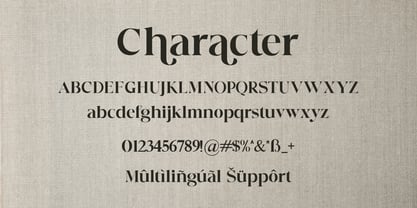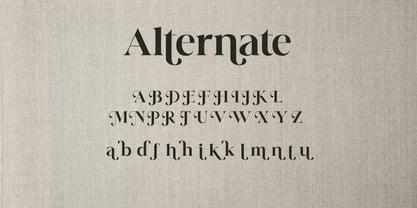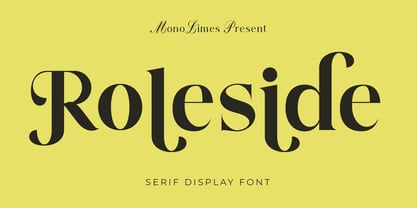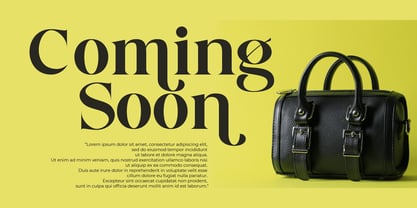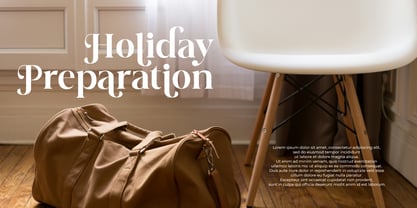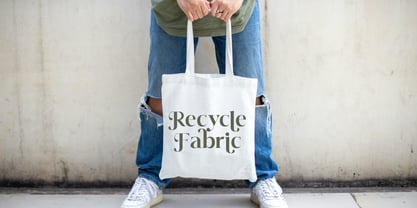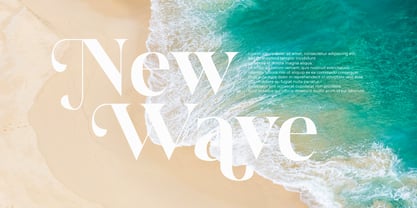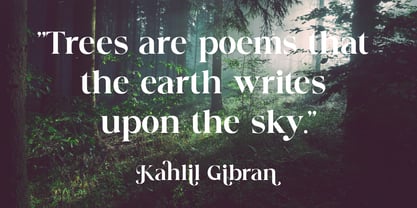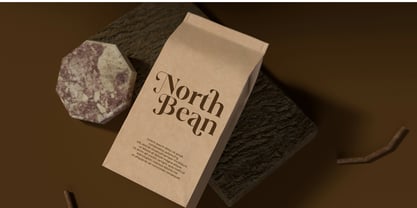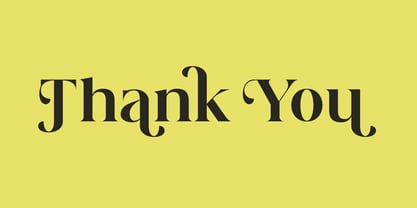
Roleside
by Monolimes
The Roleside Font Family was designed by Brainy Javanika Putra and published by Monolimes. Roleside contains 1 styles. More about this family
Roleside is a serif display typeface designed to deliver a strong visual presence with refined elegance. The font features sharp serifs, balanced proportions, and high contrast between thick and thin strokes, giving it a sophisticated and editorial look. Its distinctive letterforms make it ideal for headlines, logos, branding, posters, and luxury packaging where a bold yet classy typographic statement is needed. Roleside combines classic serif influence with a modern display aesthetic, making it suitable for fashion, editorial design, and premium brand identities.
Designers: Brainy Javanika Putra
Foundry: Monolimes